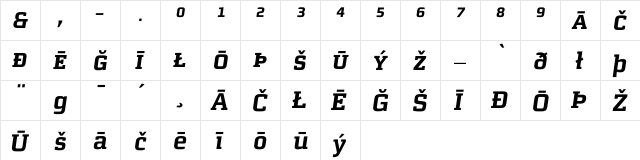
MorganAvec Bold ItalicPi Font Preview
MorganAvec Bold ItalicPi
Design Context for MorganAvec Typeface
MorganAvec offers clean, dependable letterforms without strong stylistic allegiance, making it a practical choice for designers who need flexibility. Its italic angle brings a sense of urgency and motion to the letterforms. The heavy weight commands attention and anchors typographic hierarchies.
Pro Tip: Use MorganAvec for emphasis, pull quotes, and subheadings where its slanted energy can add rhythm to the layout.